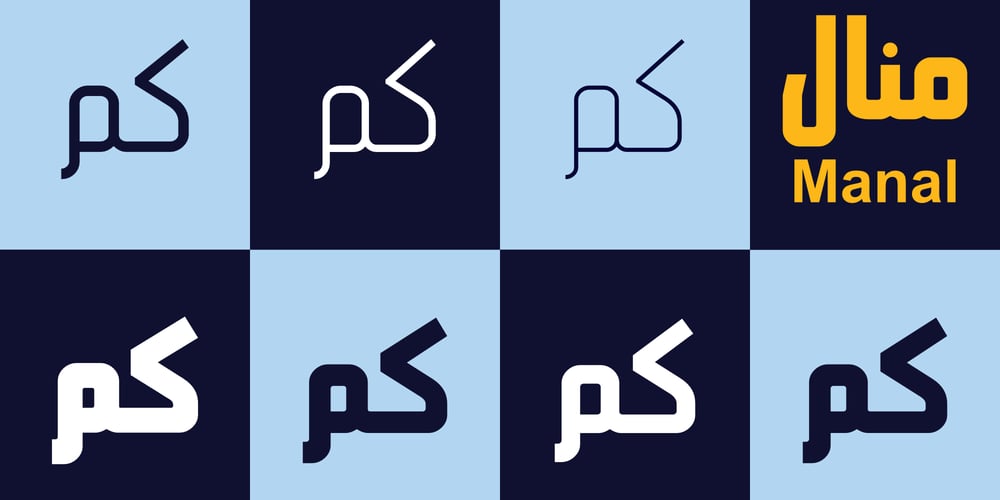
Hasan Manal Font Family was designed by Hasan Abu Afash and published by Hiba Studio. Hasan Manal contains 2 styles and family package options. Hasan Manal is an Arabic display typeface. It is useful for titles and graphic projects where a contemporary, streamlined look is desired. The font is based on the simple lines of Kufi calligraphy, and the uniform rounded of its strokes gives it a structured, geometric feel. It supports Arabic, Persian and Urdu.